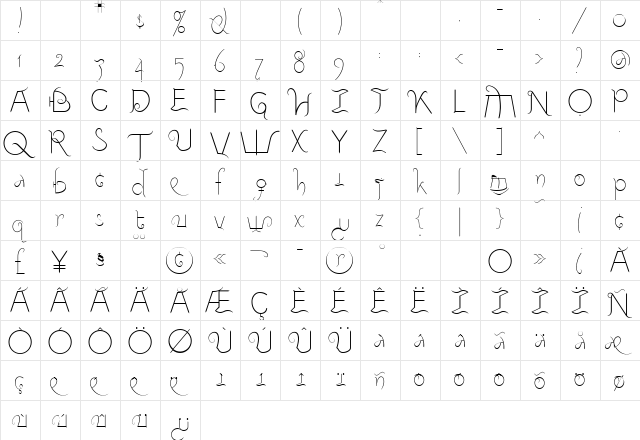
9mm Regular
Design Context for 9mm Typeface
9mm is a composed and adaptable typeface that performs quietly and consistently across a wide range of design contexts.